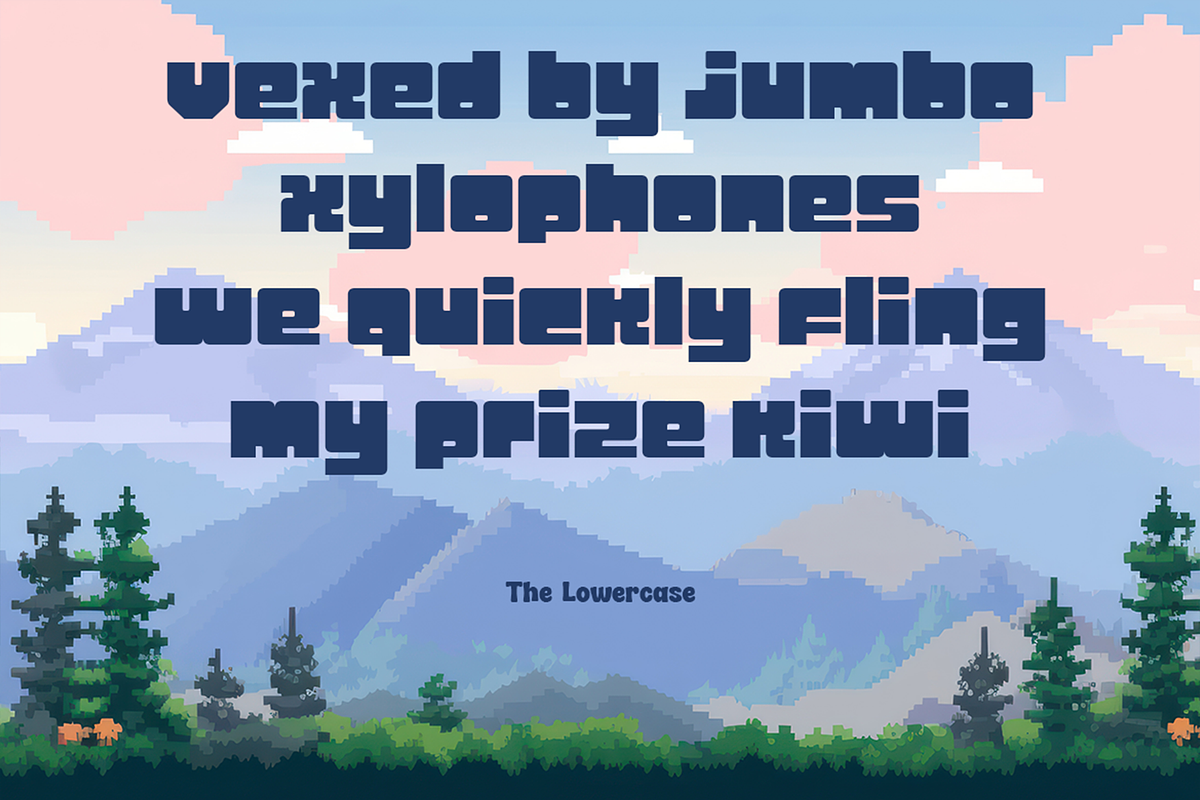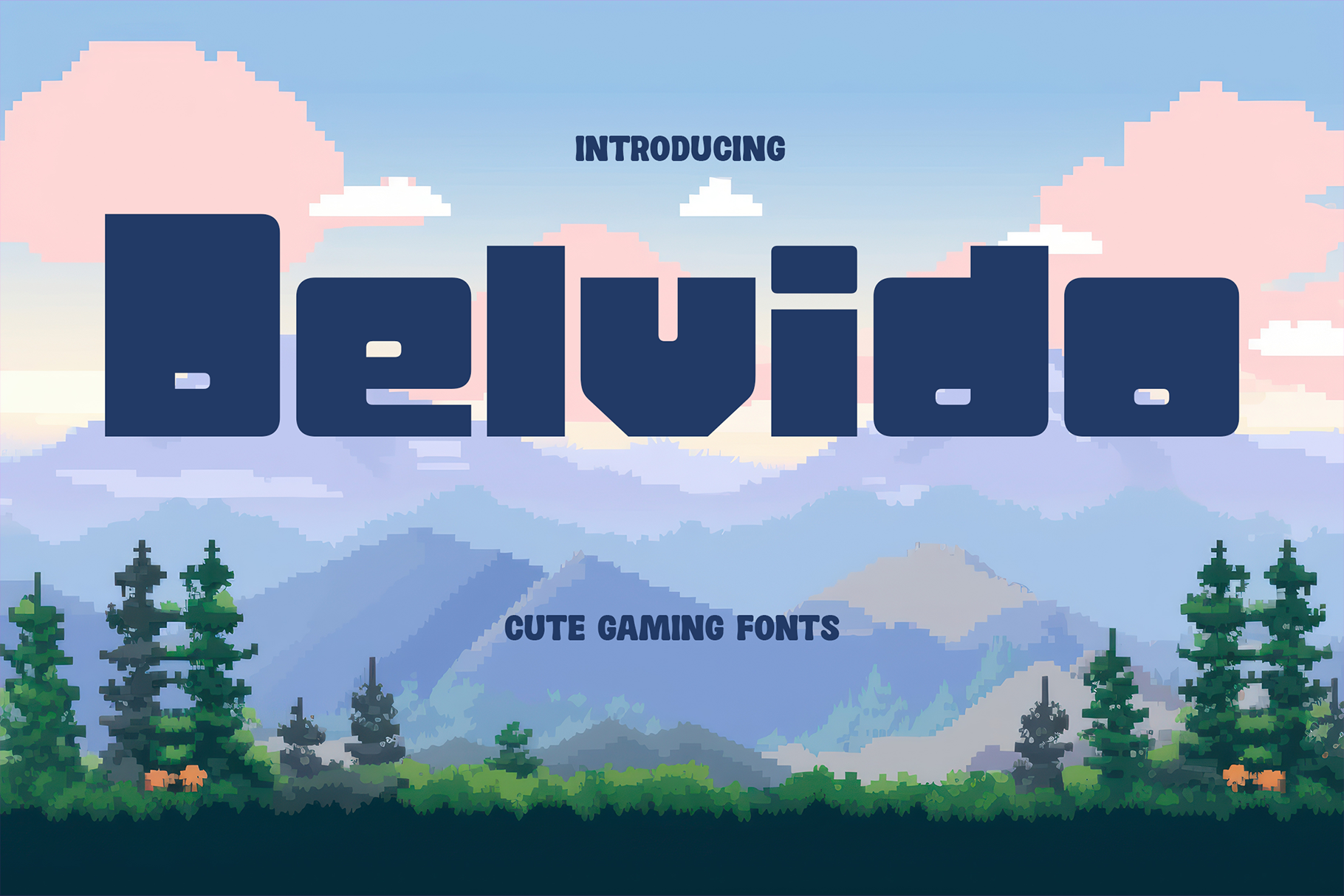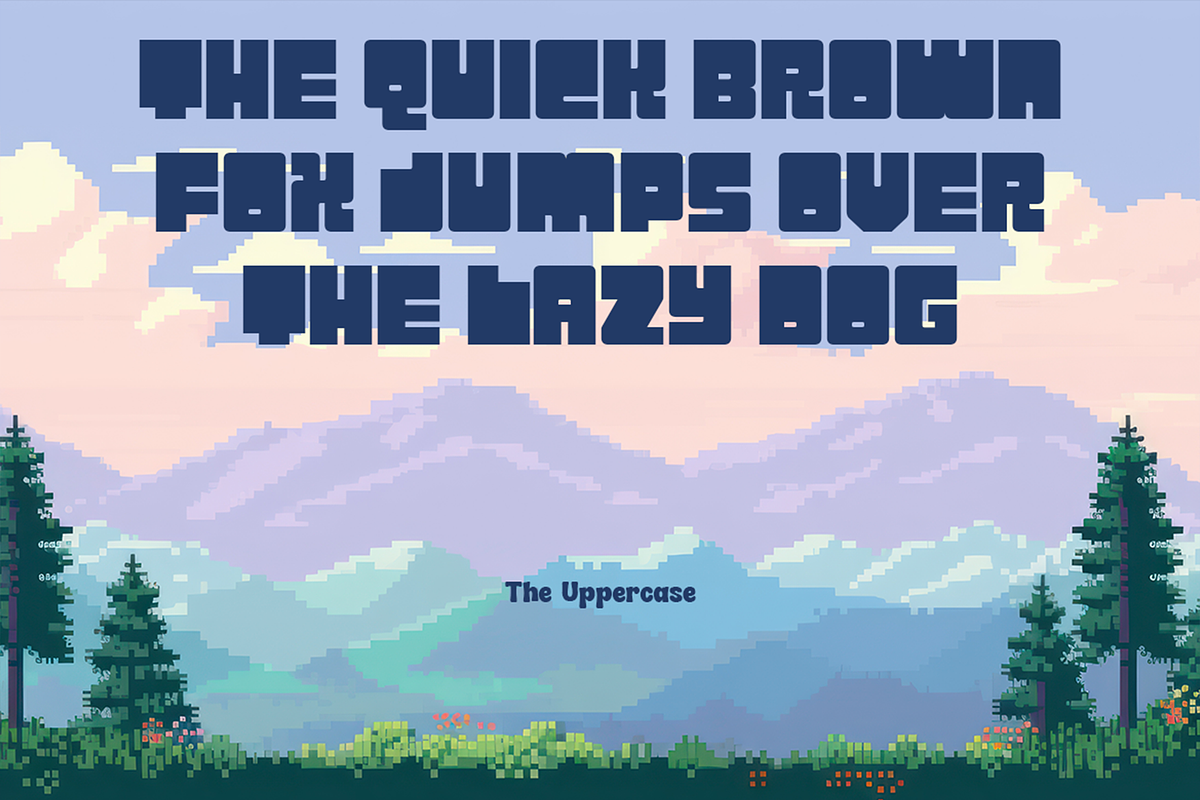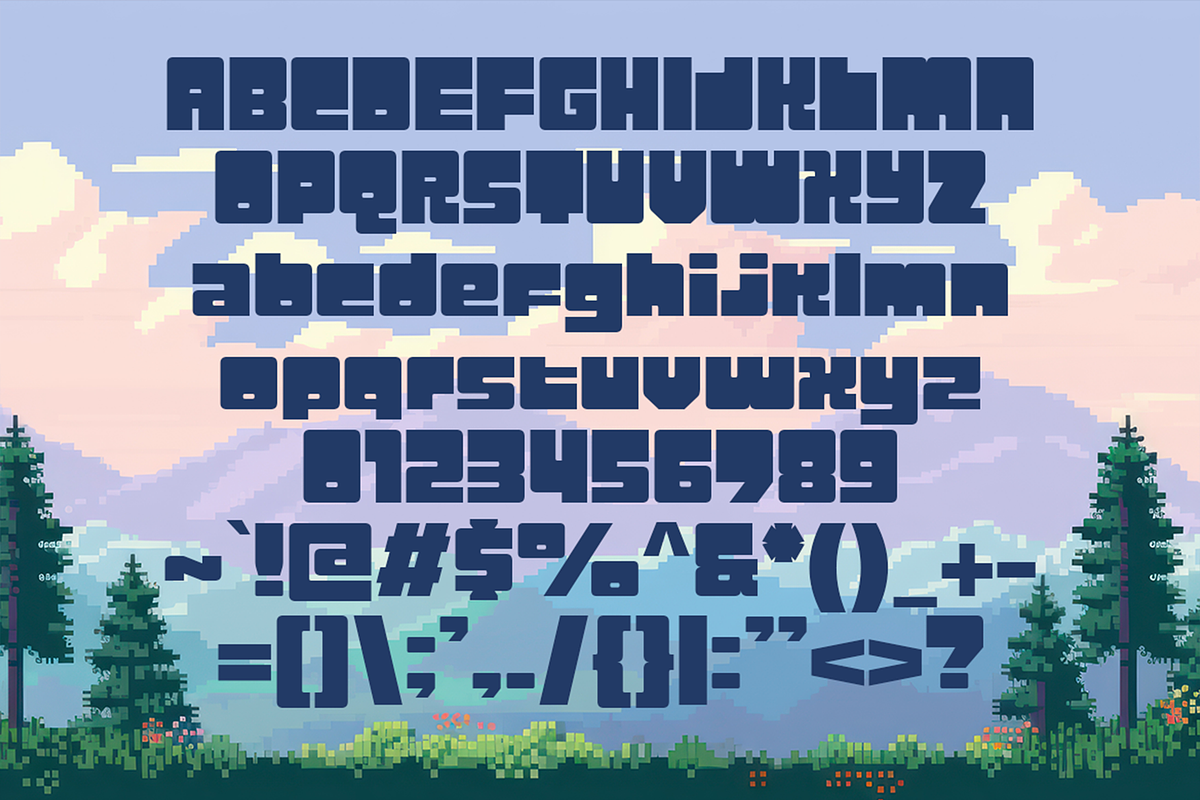
Delvido - Fun Casual Game Fonts
Introducing Delvido The Fun & Playful Font for Every Adventure!
Looking for a font that brings cute, casual, and playful energy to your designs? Meet Delvido—a square and blocky typeface inspired by today’s fun and vibrant games, with a nostalgic nod to classic mechanisms. Perfect for creating bold, exciting visuals that pop!
Whether you’re designing for:
- Toys
- Video Game Interfaces
- Storybooks for Kids
- Futuristic and Space-Themed Adventures
- Gaming Contents
- Live Stream Overlay
Delvido is your go-to choice for captivating, fun-filled creations. Its chunky, playful shapes invite creativity, making it perfect for bright, adventurous worlds. From kid-friendly brands to imaginative gaming environments, this font brings a fresh and modern feel while keeping a touch of retro charm.